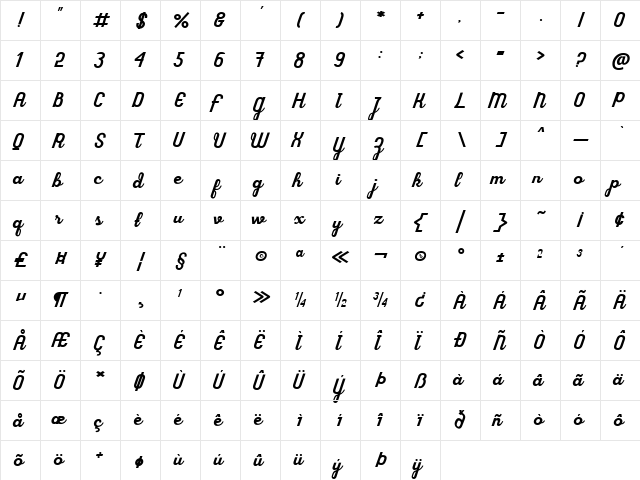
flourground Regular
| Foundry | Fadly Hedi Harahap |
| Designer | Fadly Hedi Harahap |
Design Context for flourground Typeface
flourground uses gentle rounded endings to create a warm, inviting typographic personality — less corporate than geometric sans, more refined than playful display fonts.
Well-suited to UI design, mobile interfaces, and any brand that wants approachability without sacrificing clarity.
Font Pairing: Pairs well with a rounded or humanist sans for body copy, maintaining the friendly tone without relying on flourground to carry extended reading.
Pro Tip: Use flourground for UI elements, app interfaces, and anywhere a friendly, approachable tone needs to be maintained without sacrificing clarity.